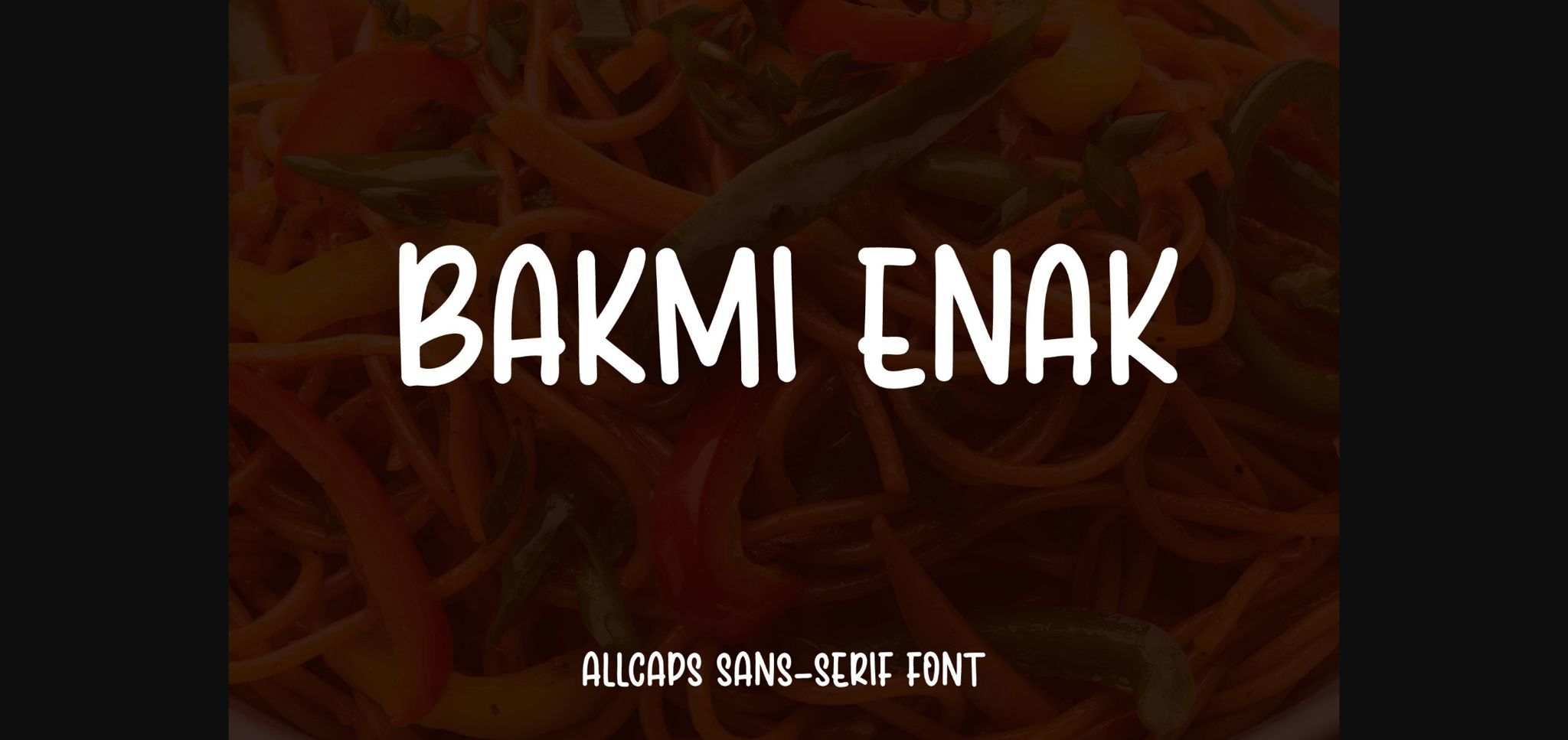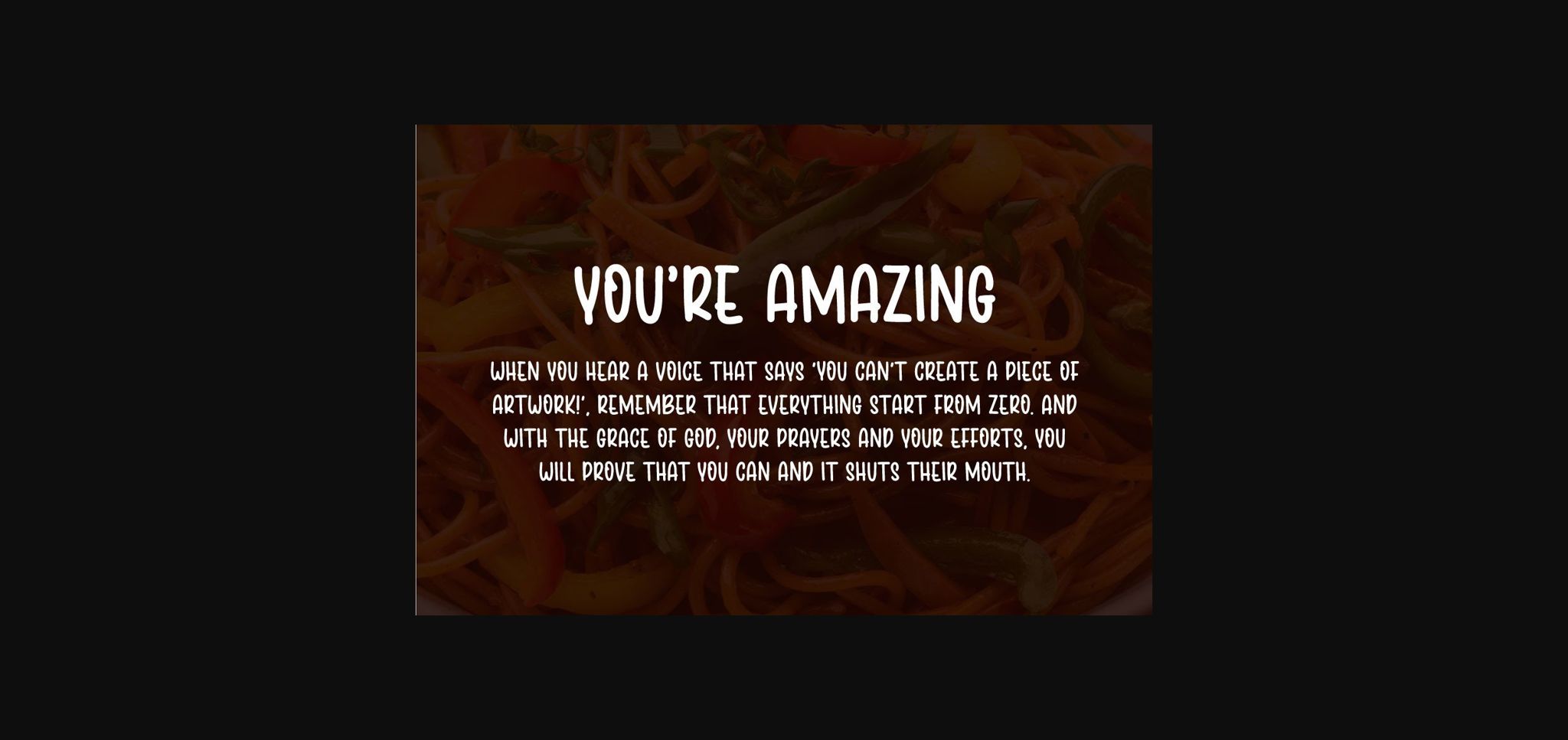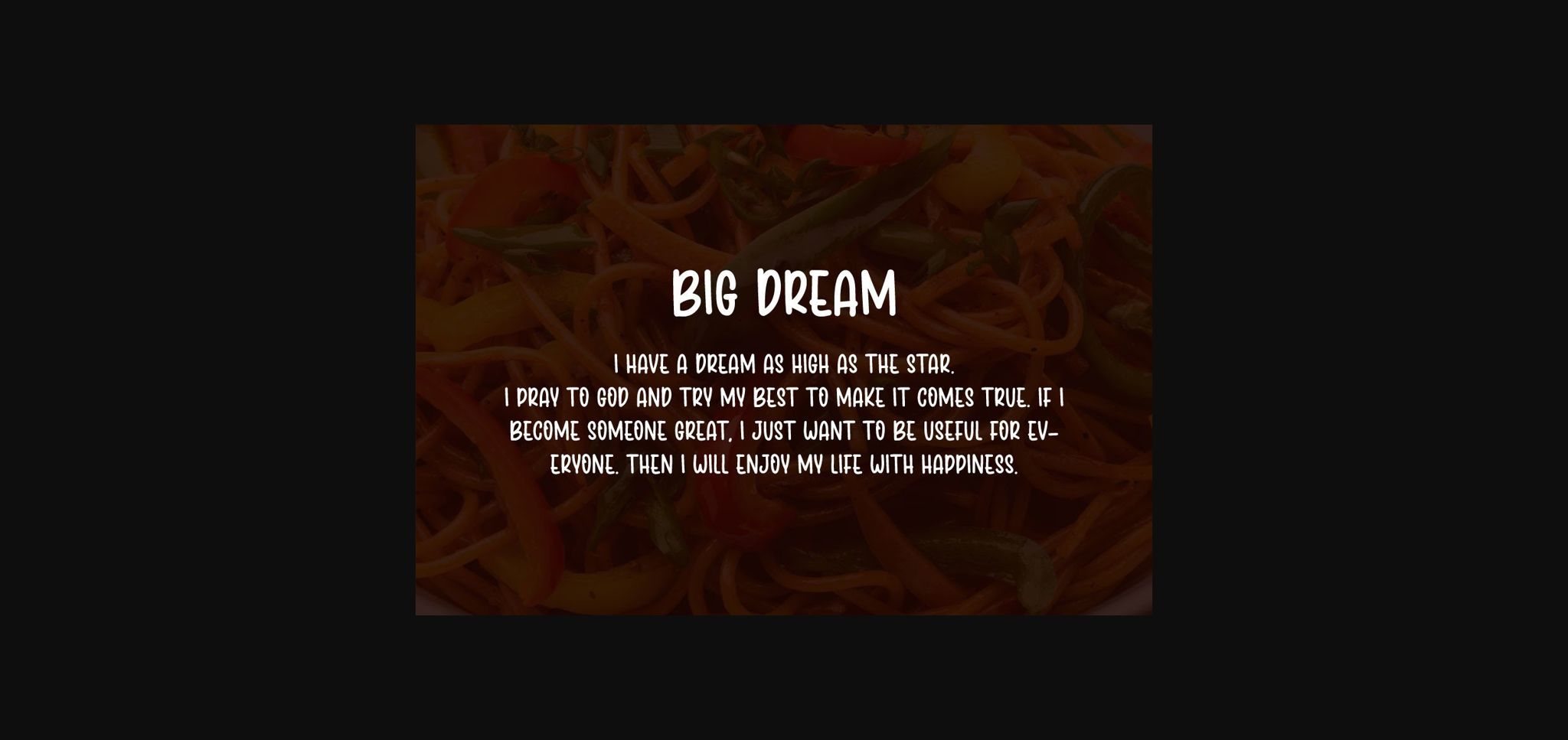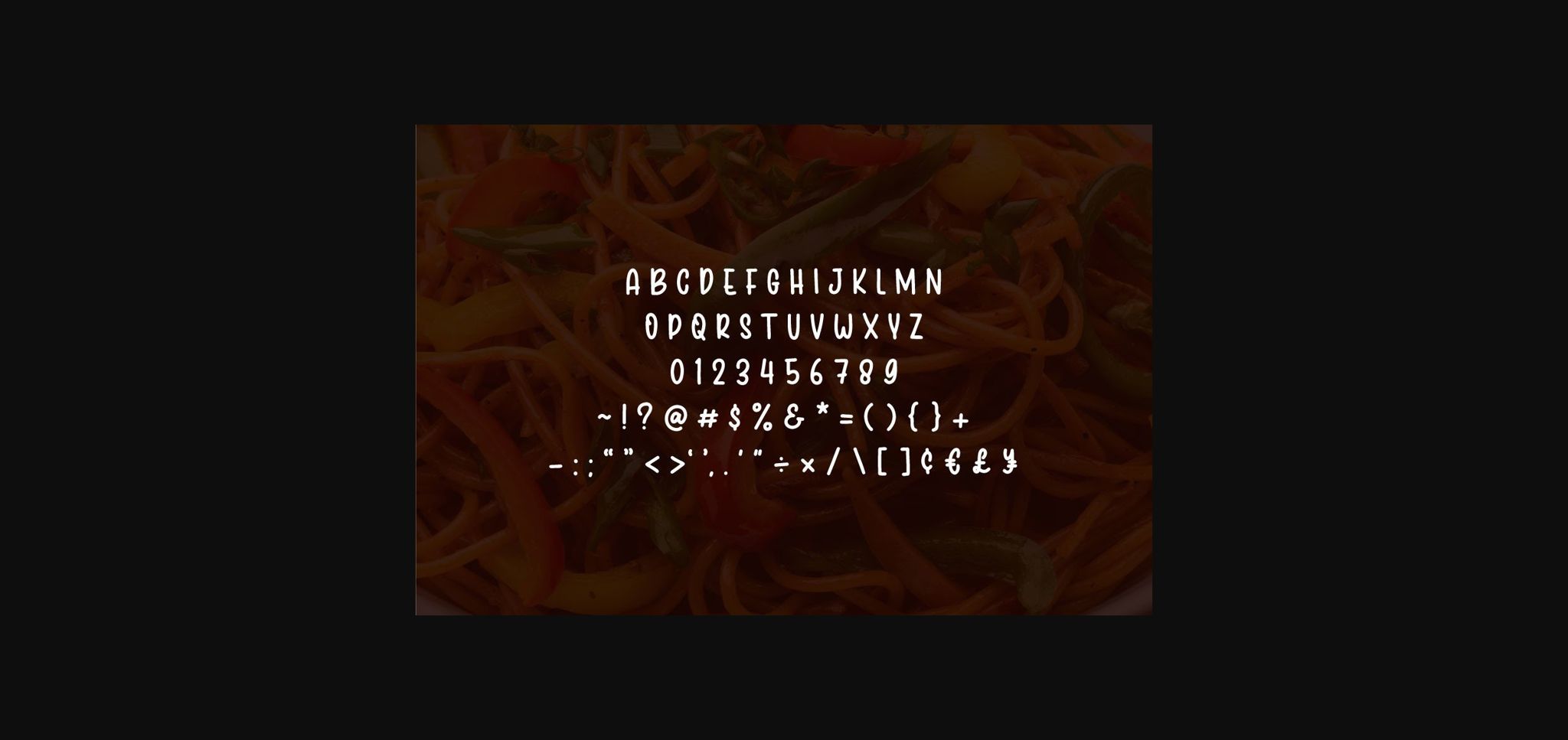
HomeSans Serif FontsBakmi Enak Font Sans Serif Fonts Bakmi Enak Font FacebookXPinterestWhatsApp 1 of 6 ... Bakmi Enak Font Poster 2... Bakmi Enak Font Poster 3... Bakmi Enak Font Poster 4... Bakmi Enak Font Poster 5... Bakmi Enak Font Poster 6... About Bakmi Enak Font Bakmi Enak is a friendly and cute all-caps handwritten sans serif font. No matter the topic, this font will be an incredible asset to your fonts’ library, as it has the potential to elevate any creation. DOWNLOAD NOW People also explored Harmonic Font Farmhouse Holiday Font Billya Palm Font Prastha Font Daisy Font Field Trip Typewriter Christimas Font Run Rudolf Font Alifapolloviper Font 464 0 TagsBakmi Enak Font Previous articleHouse Minimalist FontNext articleStraight Bough Font LEAVE A REPLY Cancel reply Comment: Please enter your comment! Name:* Please enter your name here Email:* You have entered an incorrect email address! Please enter your email address here Website: Save my name, email, and website in this browser for the next time I comment. Personal Use Free Rogueland Personal Use Free Read more about this font Meloche Book Personal Use Free Read more about this font Mellow Personal Use Free Read more about this font Almonte Personal Use Free Read more about this font BLOG Using Fonts in Digital Marketing: Tips to Strengthen Your Brand Identity In the realm of digital marketing, every visual element plays a crucial role in shaping a brand's identity, and fonts are no exception. The... Exploring Font Trends 5 Fonts That Will Dominate Design Trends in 2026 Elegant Wedding Invitation Fonts – Handwritten & Script Fonts